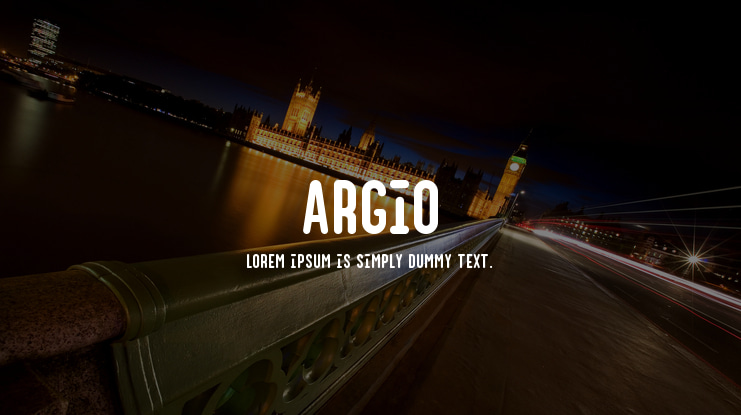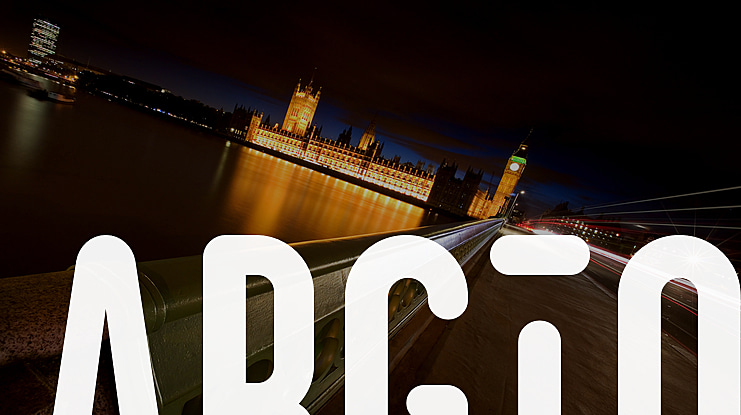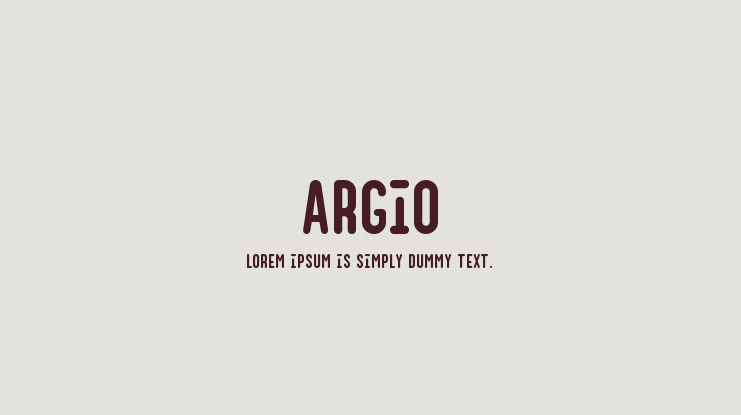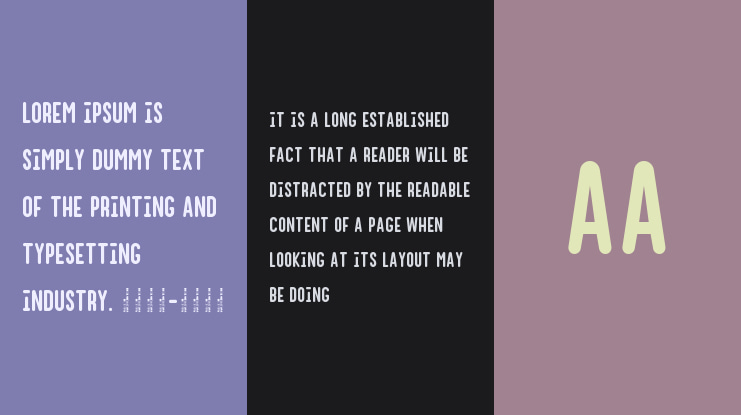
Argio Font
Introducing Argio, a fancy sans serif font with optional stencils and loads of styles to choose from. Its geometrical and calm character is made for headlines and logos. Dont forget to try out the optional stencils to set an eyecatcher and give your work a unique touch.
To use one of the five ligatures, just type "theliga" and you will get a unique designed pre-set eyecatcher. And there are even more ligatures!